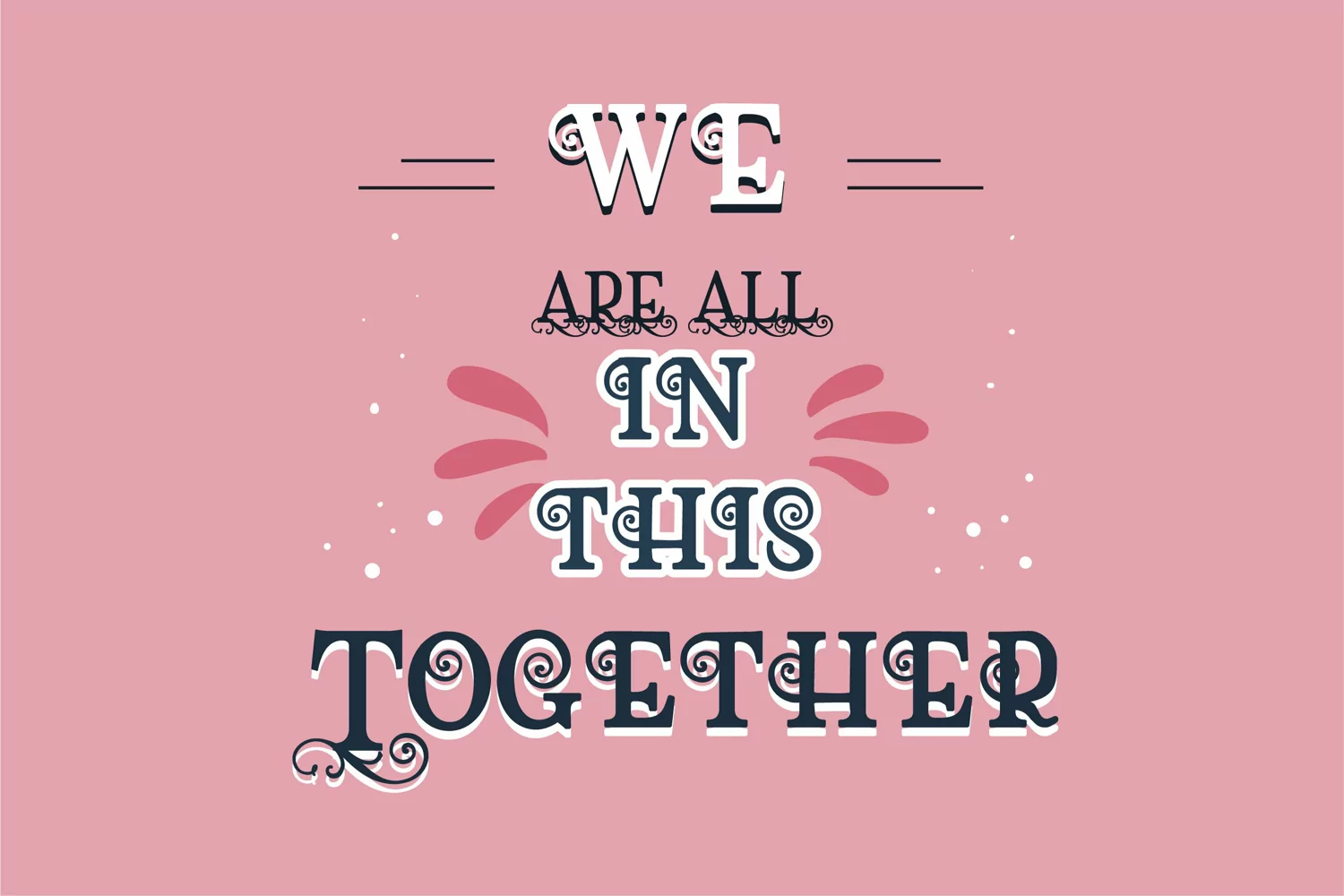
This serf font is flourished with an uppercase that has more extreme flourishes. Makes a great font for monograms. Farmerette Frame is included which is a framed, flourished version.